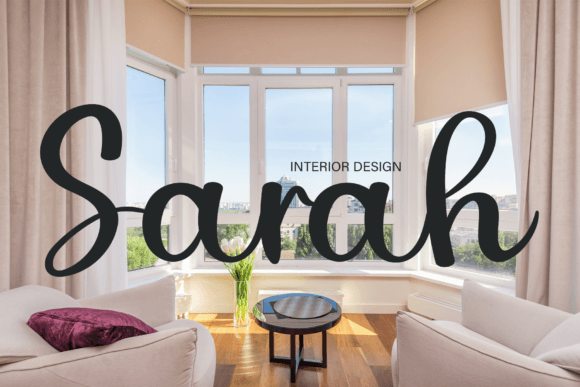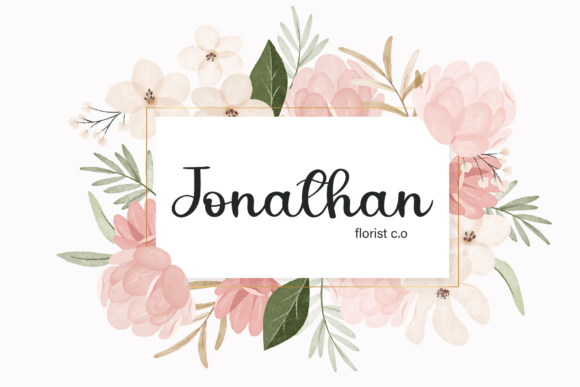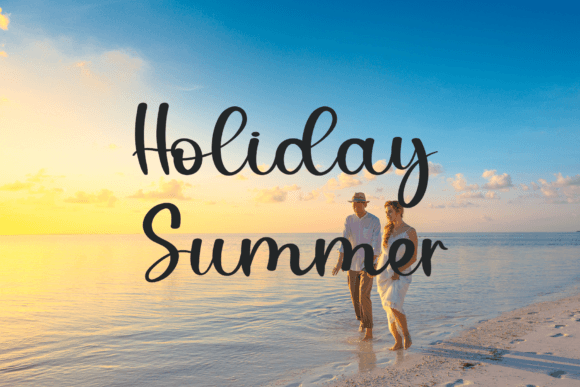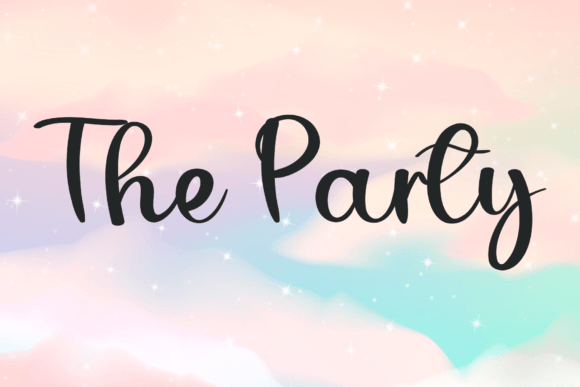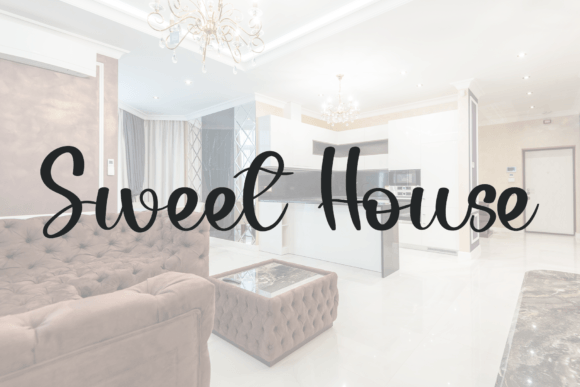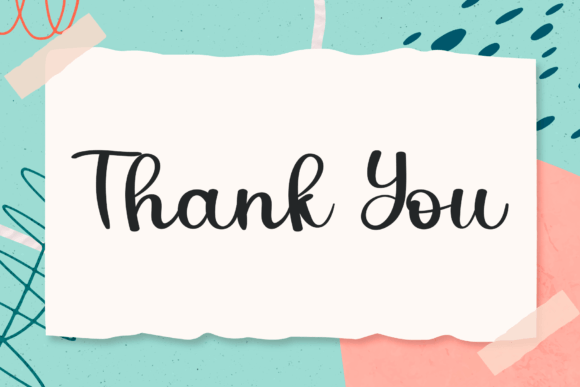
Introducing Always Together Font: The Perfect Retro Typeface for Your Creative Projects
Are you a designer or crafter looking for a unique and eye-catching font to elevate your creative projects? Look no further than Always Together Font, a cute and groovy retro typeface that’s perfectly suited for a wide range of designs. From t-shirts and tote bags to wedding designs, logos, and more, this font is sure to make your ideas stand out and look stunning.
What is Always Together Font?
Always Together Font is a carefully crafted typeface that’s inspired by the fun and playful vibe of retro designs. Its unique and quirky style makes it perfect for designers and crafters who want to add a touch of nostalgia and personality to their work. Whether you’re creating a logo, designing a t-shirt, or crafting a wedding invitation, this font is sure to bring a smile to people’s faces.
Key Features of Always Together Font
- Cute and Groovy Design: Always Together Font features a unique and playful design that’s reminiscent of retro typography. Its bold lines, rounded edges, and quirky style make it perfect for designs that require a fun and eye-catching font.
- Highly Versatile: This font is incredibly versatile and can be used for a wide range of designs, including t-shirts, tote bags, hats, stickers, wedding designs, logos, cards, quotes, and more.
- Easily Readable: Despite its playful design, Always Together Font is easily readable, making it perfect for designs that require a clear and concise message.
- Scalable: This font is highly scalable, which means it can be used for designs of all sizes, from small stickers to large billboards.
Use Cases for Always Together Font
Always Together Font is perfect for a wide range of design projects, including:
- T-Shirts and Apparel: Add a touch of personality to your t-shirts, hoodies, and other apparel with this fun and quirky font.
- Wedding Designs: Create beautiful and unique wedding invitations, signs, and decorations with Always Together Font.
- Logos and Branding: Use this font to create a memorable and eye-catching logo for your business or brand.
- Stickers and Decals: Add a touch of fun and personality to your stickers and decals with this playful font.
- Cards and Stationery: Create beautiful and unique cards, invitations, and stationery with Always Together Font.
Why Choose Always Together Font?
There are many fonts available that claim to be retro-style, but Always Together Font stands out from the crowd. Here are just a few reasons why:
- Unique Design: This font features a unique and quirky design that’s sure to grab people’s attention.
- High-Quality: Always Together Font is a high-quality typeface that’s been carefully crafted to ensure it’s clear, readable, and visually appealing.
If you’re looking for a fun and quirky retro font to elevate your creative projects, look no further than Always Together Font. Its unique design, versatility, and high-quality make it perfect for a wide range of designs, from t-shirts and wedding designs to logos and stickers. So why wait? Download Always Together Font today and start creating stunning designs that are sure to grab people’s attention!
Whether you’re a seasoned designer or a crafter just starting out, Always Together Font is a great addition to your font library. Its ease of use, readability, and unique style make it a valuable resource for anyone looking to add a touch of personality to their designs. So go ahead, get creative, and see what amazing designs you can create with Always Together Font!